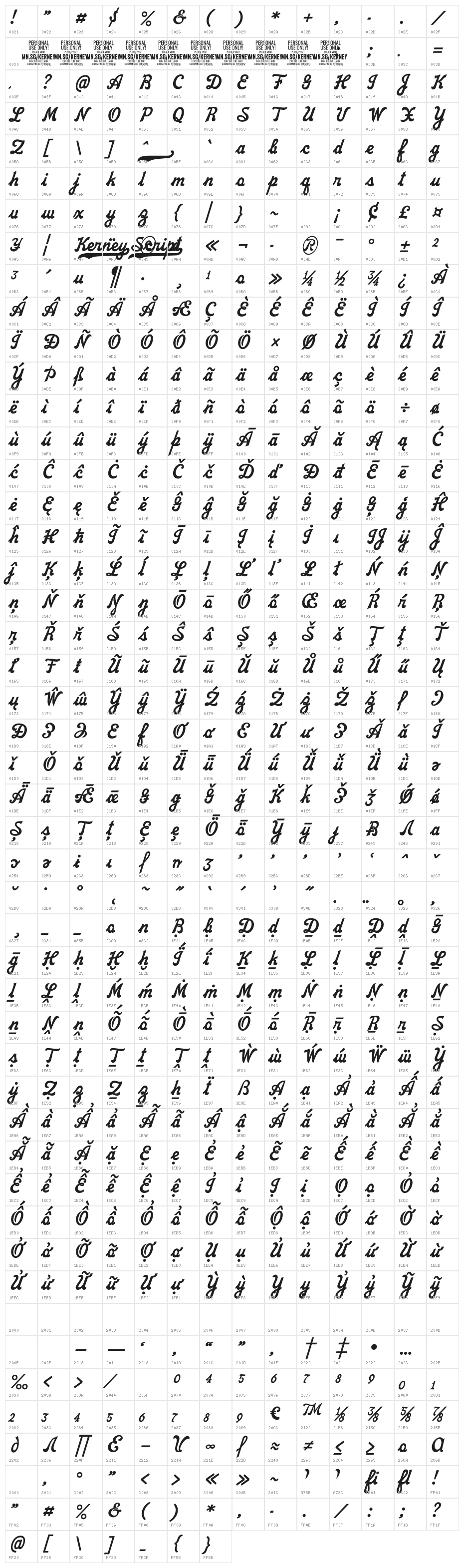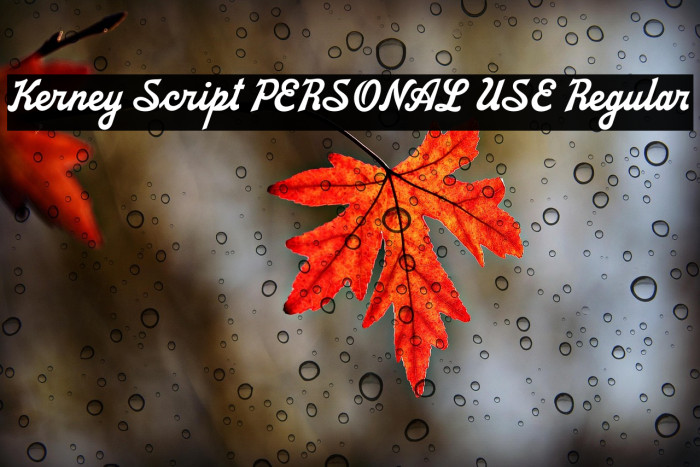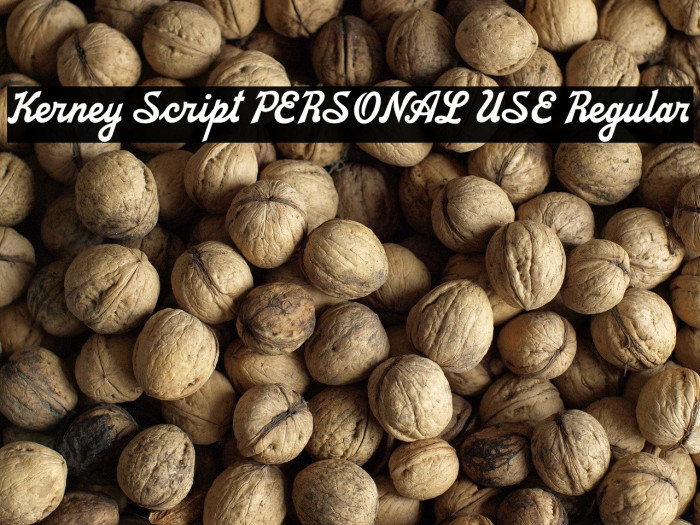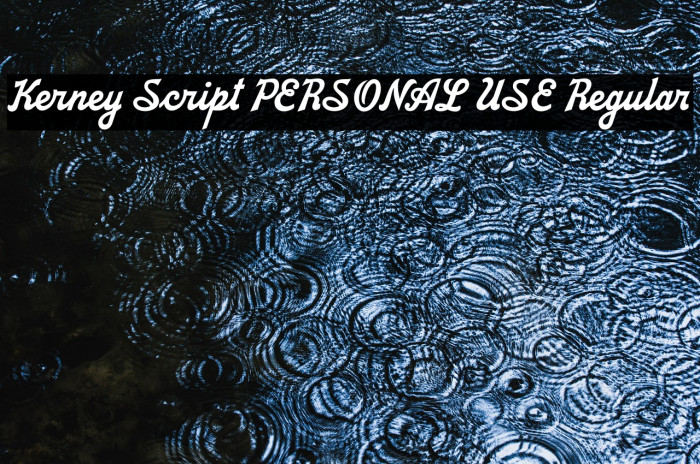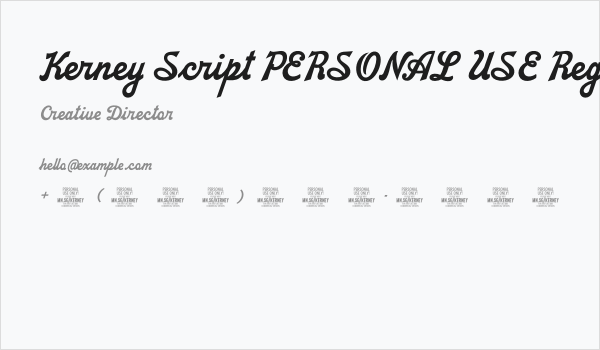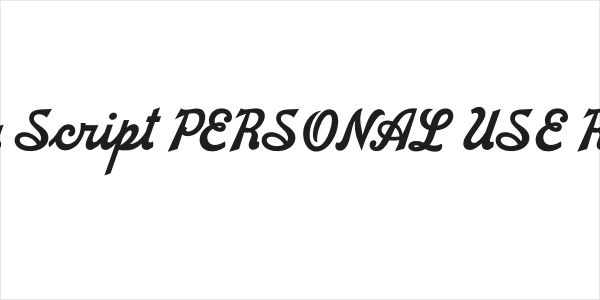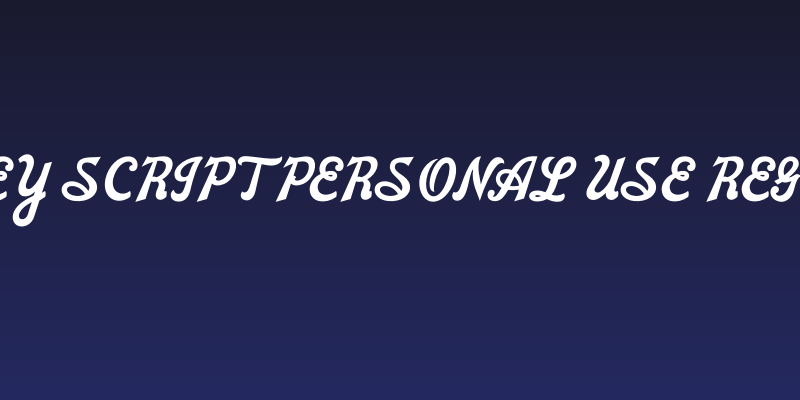
Kerney Script PERSONAL USE Regular Font
Kerney Script PERSONAL USE Regular Description
This font exudes a classic script style with a modern twist, featuring elegant, flowing letterforms that are both bold and expressive. The uppercase letters are slightly more ornate, with sweeping curves and a sense of movement, while the lowercase letters maintain a consistent, smooth flow. The numerals and special characters are designed to complement the overall aesthetic, adding a touch of sophistication. The font's bold weight and medium contrast in stroke thickness make it highly legible, yet stylish, suitable for a variety of design applications.
| Proposed Projects | Ideal for wedding invitations, branding projects, logo design, and elegant packaging. |